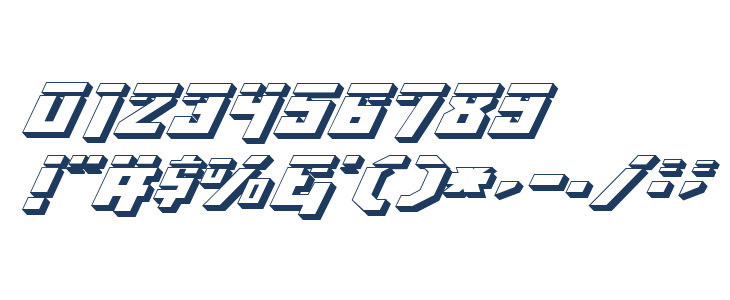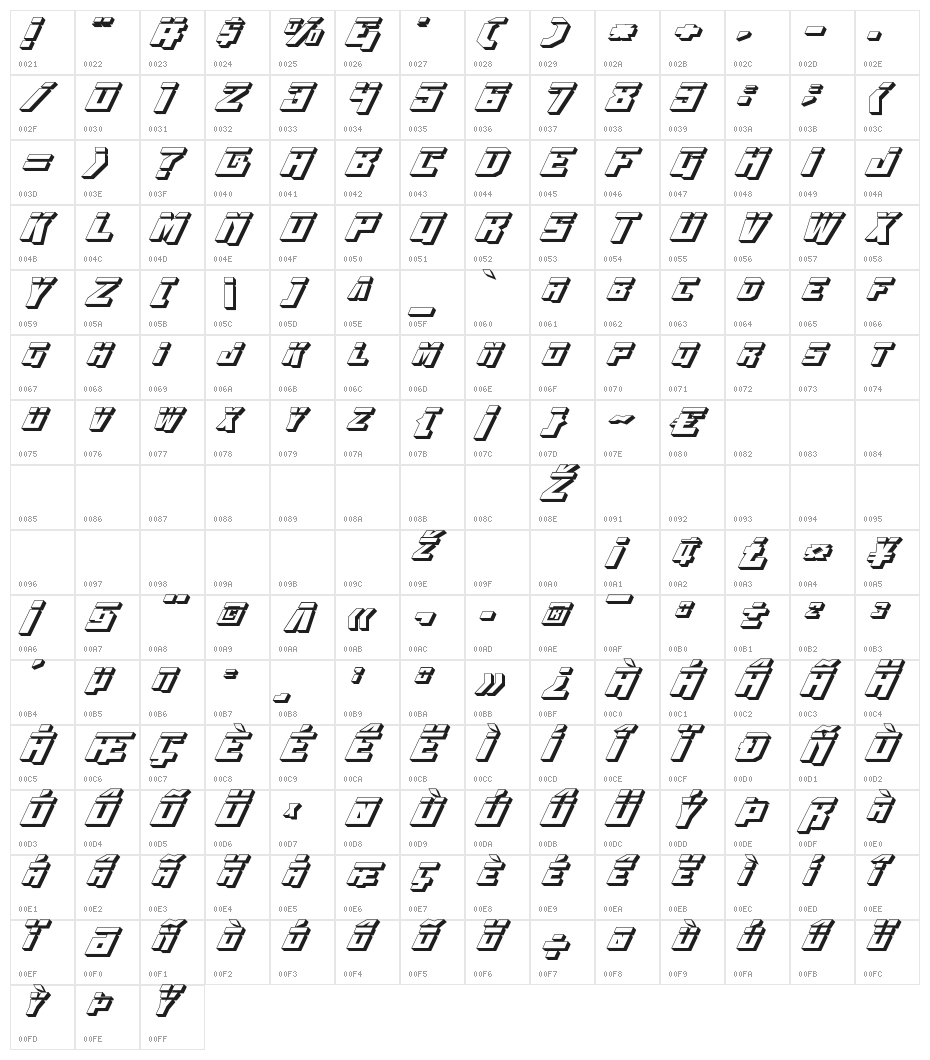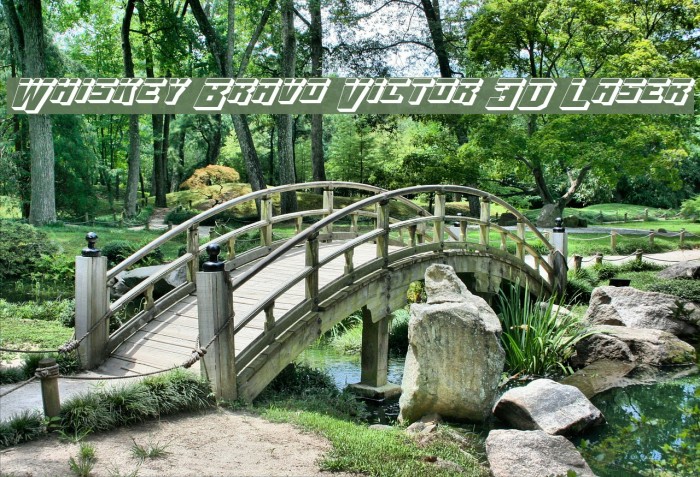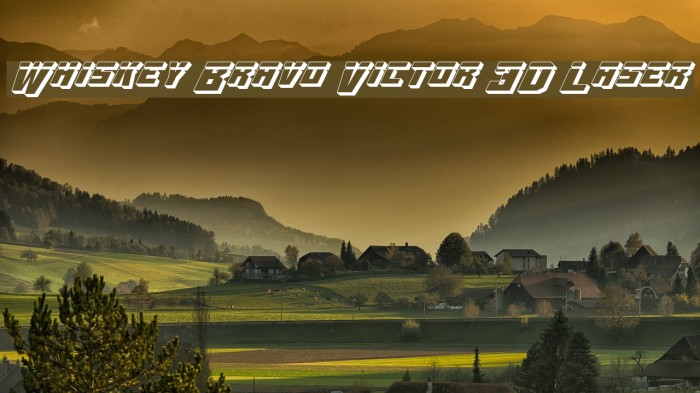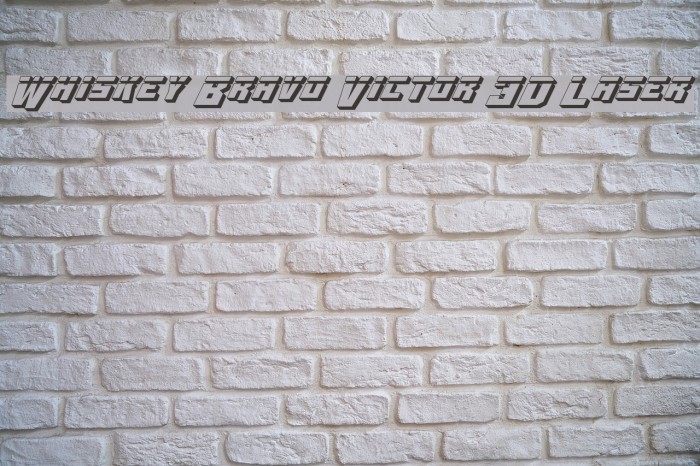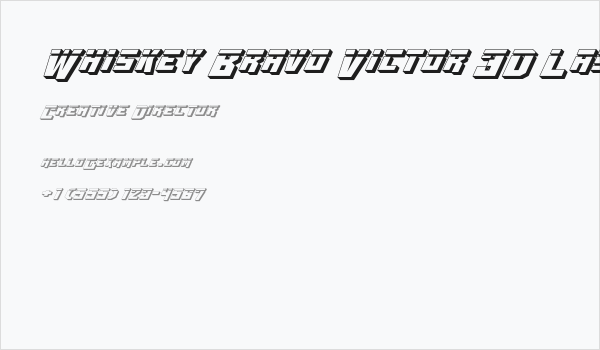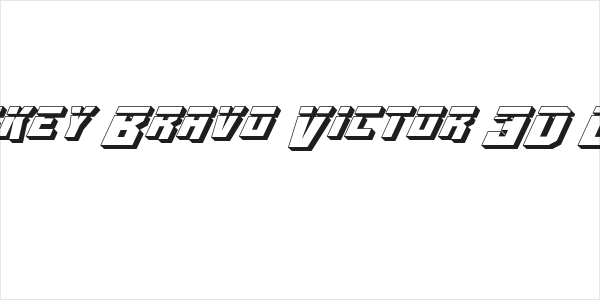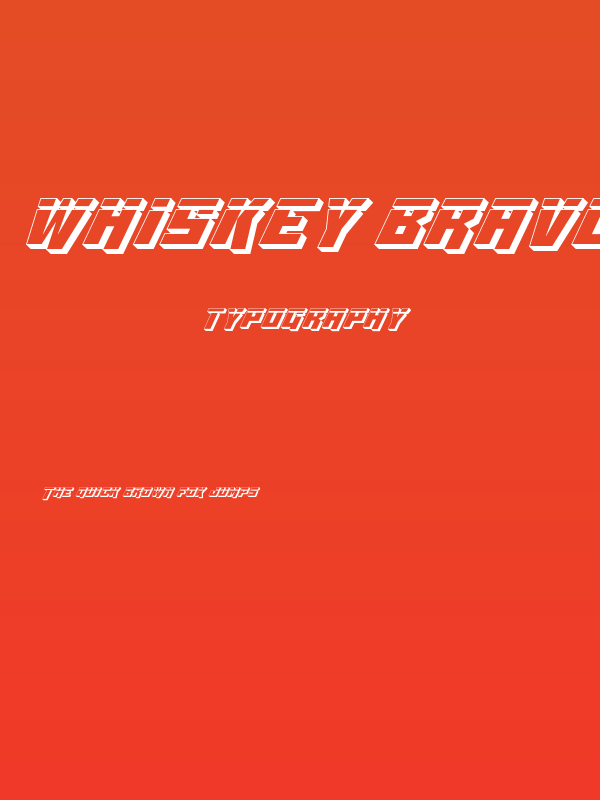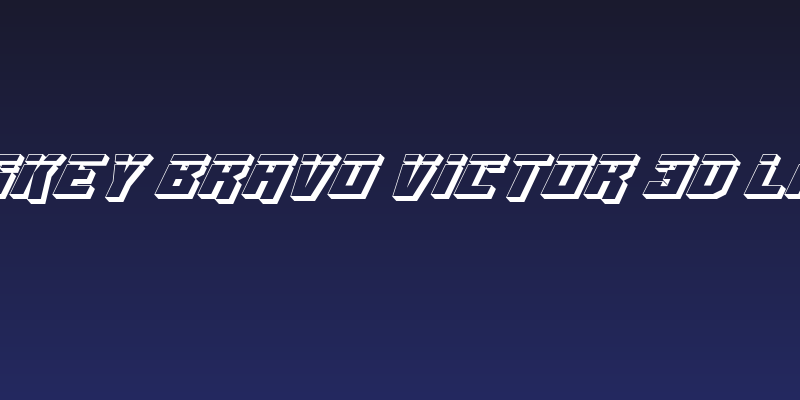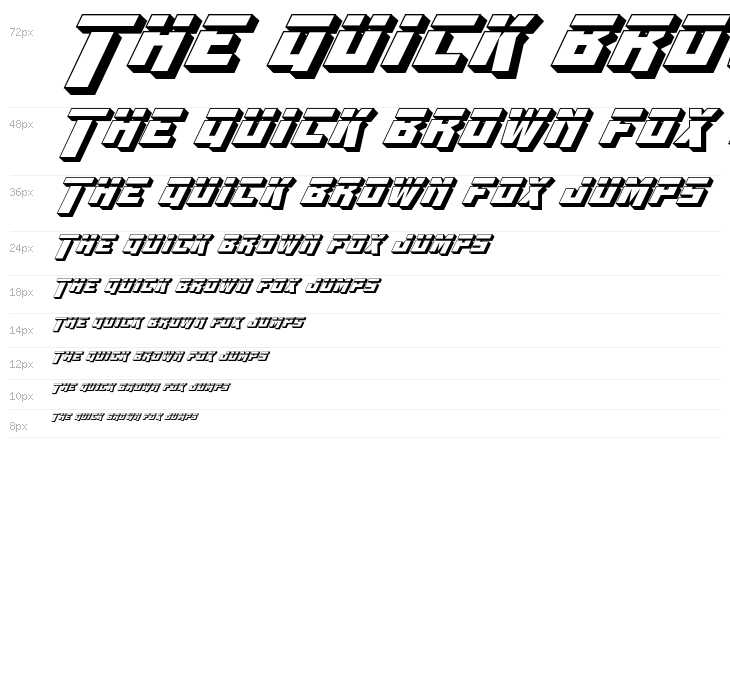
Whiskey Bravo Victor 3D Laser Font
Whiskey Bravo Victor 3D Laser Description
This font exhibits a bold, three-dimensional style with a distinct geometric structure. Each character is designed with a shadow effect, giving it a dynamic and impactful appearance. The angular edges and sharp lines contribute to its futuristic and industrial aesthetic. The font maintains a consistent weight throughout, ensuring uniformity across all characters. Its boldness is emphasized by the thick outlines and the illusion of depth created by the shadowing. This style is particularly eye-catching and suitable for projects that require a strong visual presence.
| Proposed Projects | Ideal for use in video game graphics, movie posters, technology branding, and any project needing a strong, modern aesthetic. |